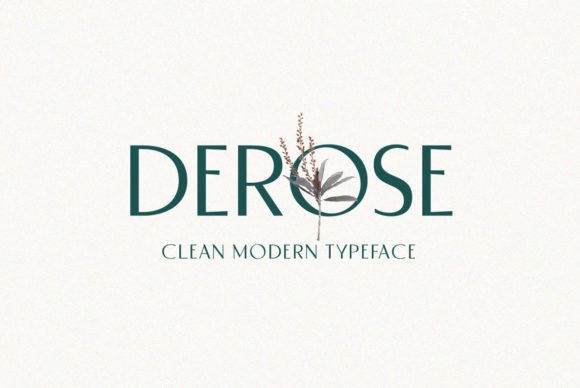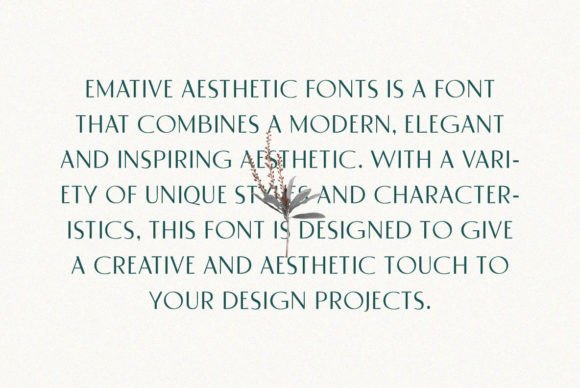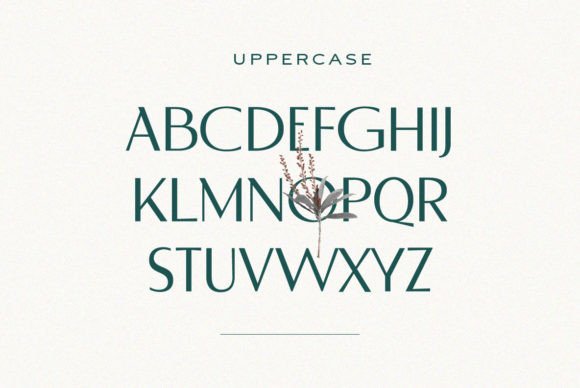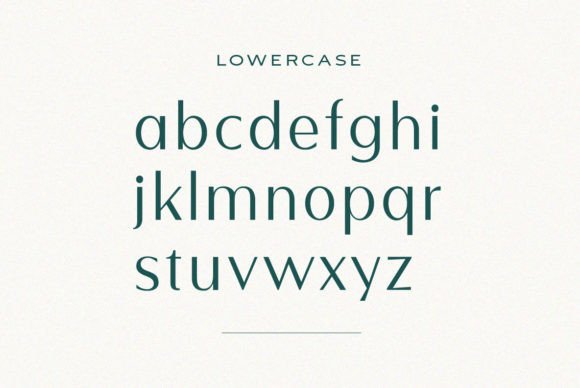
Derose Font: Modern & Elegant – Aesthetic Fonts for Branding & Logo Design
About the Derose Font
We are excited to introduce Derose Font, a must-have typeface for any serious designer. Derose Clean Modern Font is a font featuring a clean and fresh modern style. With a minimalist and sharp design, this font gives off a clean and professional impression. Each letter has clear lines and balanced proportions, ensuring optimal legibility. Derose Clean Modern Font is suitable for use in various graphic design projects, such as posters, brochures, logos, and web displays, with its ability to give a fresh and contemporary look
Derose excels in headlines, logos, and short-form text applications like posters and branding materials where its clean lines and modern aesthetic shine. Its sharp geometry lends itself well to minimalist designs and projects requiring a sense of sophistication and professionalism. However, its minimalist nature makes it less suitable for large blocks of body text or UI elements where readability over extended lengths is crucial.
For effective pairings, consider complementing Derose with a warm, slightly rounded sans-serif for body copy to soften its sharp edges, or a classic serif for a touch of timeless elegance. A playful script font could add a touch of personality to a logo or tagline when used sparingly. Avoid pairing it with other geometric sans-serifs, as this might create a visually monotonous effect.
Derose possesses a core personality of sleek modernity and understated confidence. It’s ideal for brands aiming for a clean, professional image, perhaps in the technology, fashion, or corporate sectors. Its balanced proportions and sharp details communicate a sense of precision and attention to detail.